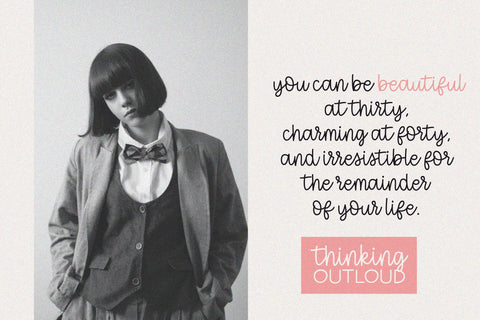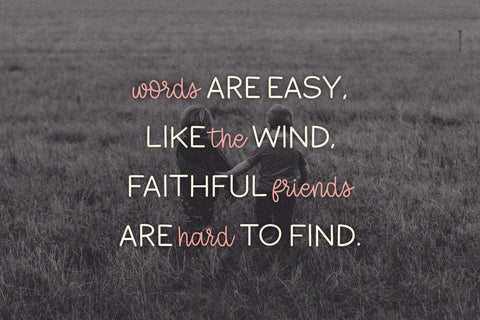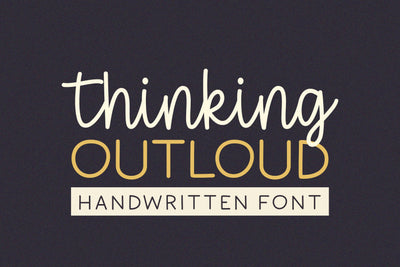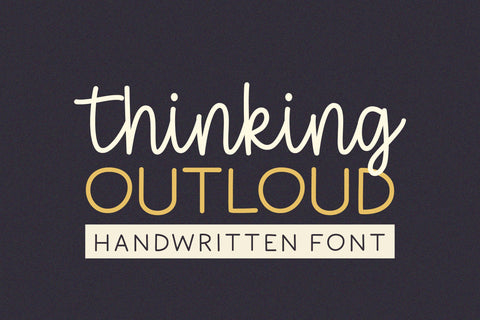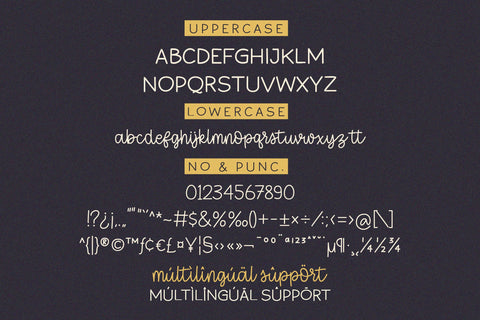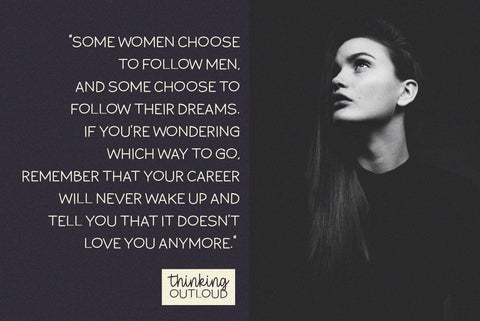
Thinking Outloud - Rustic Handwritten Font
Thinking Outloud is a lovely handwritten rustic font. This original look will appeal to a wide range of crafty ideas, from letterheads and titles to stationery.
- Numbers & Punctuation